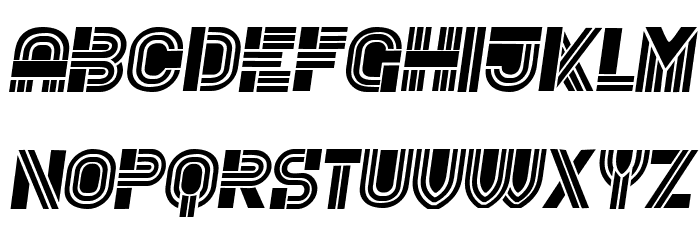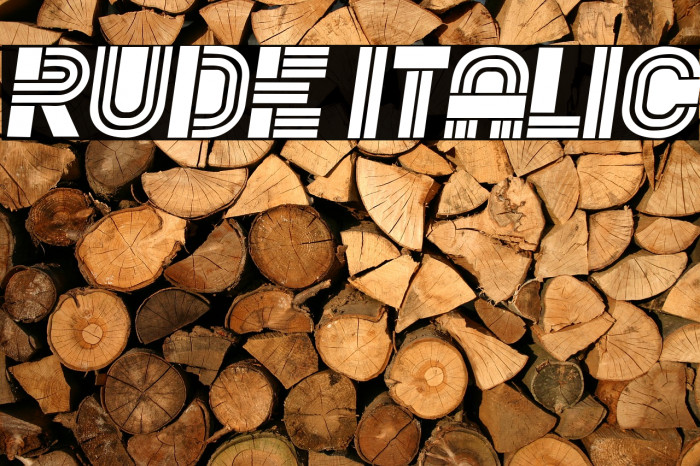
Rude Italic Font
This font features a bold and striking design with a modern, geometric aesthetic. The characters are composed of thick, parallel lines that create a sense of movement and energy. The use of negative space within the letters adds a dynamic and layered effect, making it visually engaging. The uppercase letters are particularly prominent, with a strong presence that commands attention. The overall style is decorative and contemporary, suitable for projects that require a bold statement. The font's unique structure makes it ideal for creative and artistic applications.
A bold, geometric font with dynamic, parallel lines and strong visual impact.
- Proposed Projects: Ideal for posters, album covers, branding, and any project needing a bold, modern look.